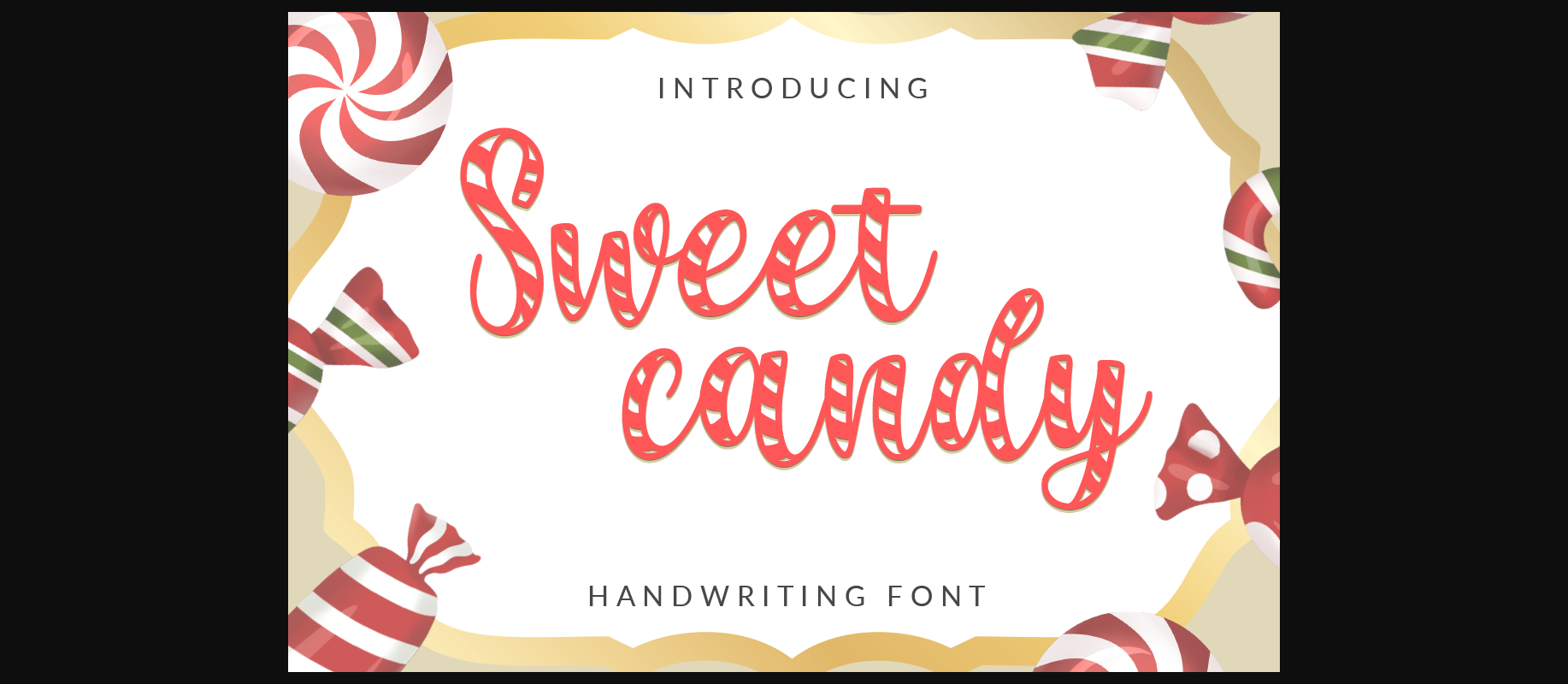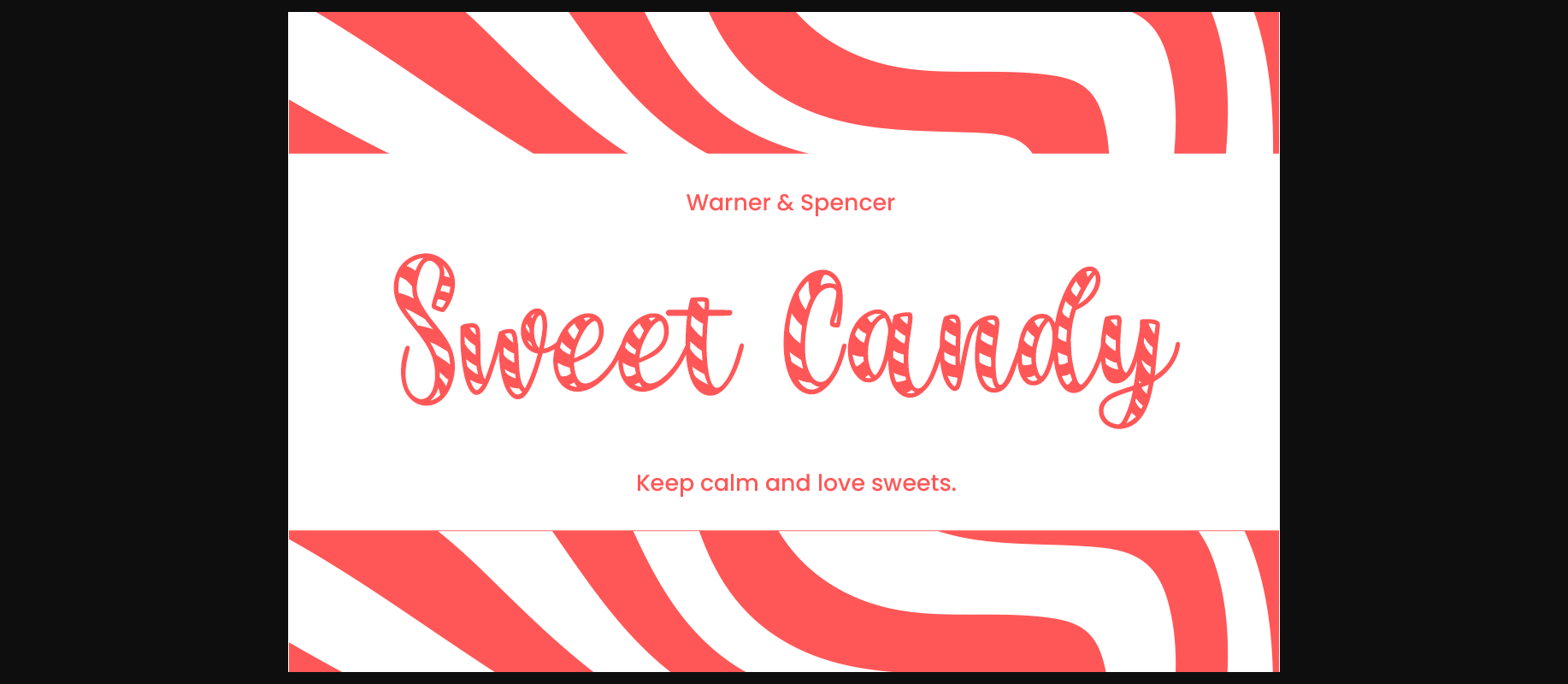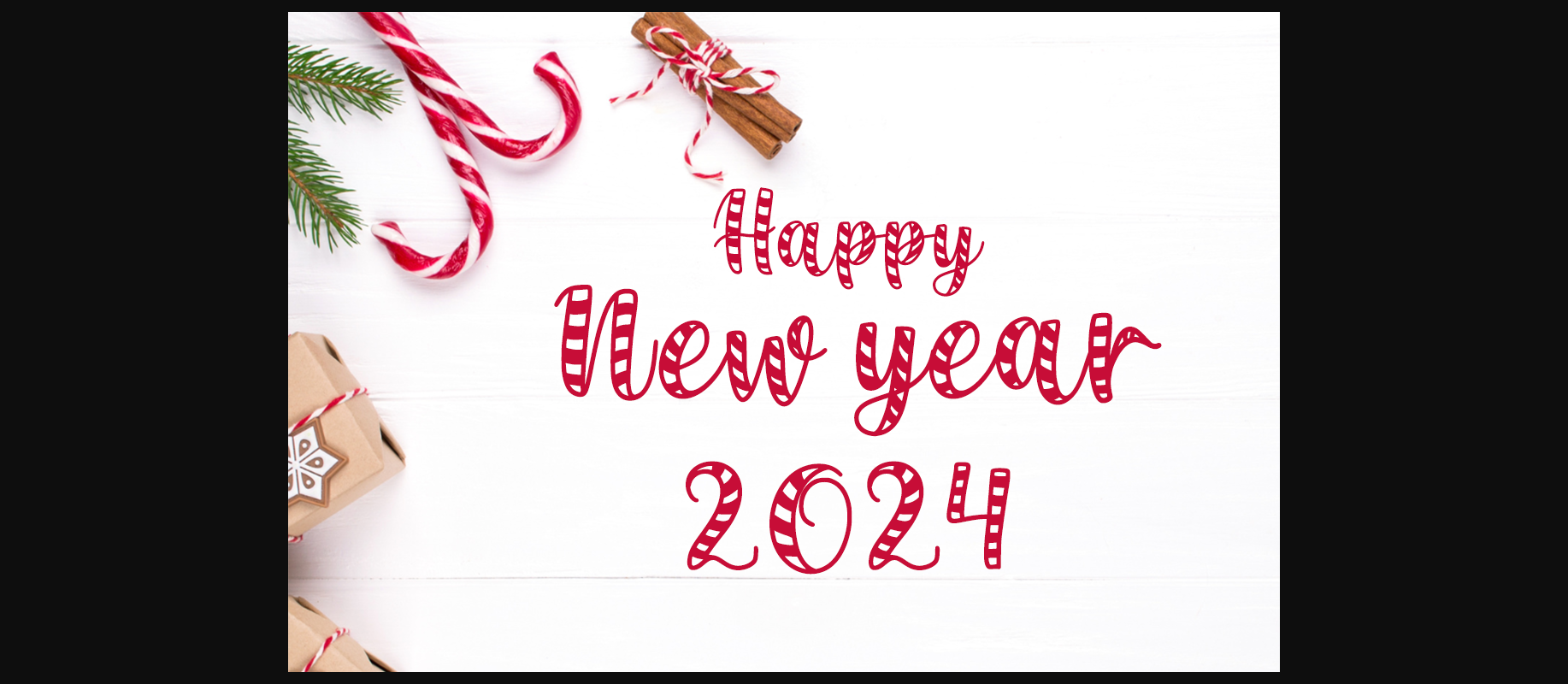
About Sweet Candy Font
Sweet Candy is a delightful handwritten font that swirls with the playful essence of candy cane stripes. Its charming and whimsical design brings a sweet touch to your projects, making it perfect for anything that needs a dash of fun and friendliness. Use Sweet Candy to add a sugary-sweet vibe to invitations, cards, or any creative endeavor that could use a sprinkle of joy. Embrace the sweet side with Sweet Candy’s cheerful and handcrafted appeal.